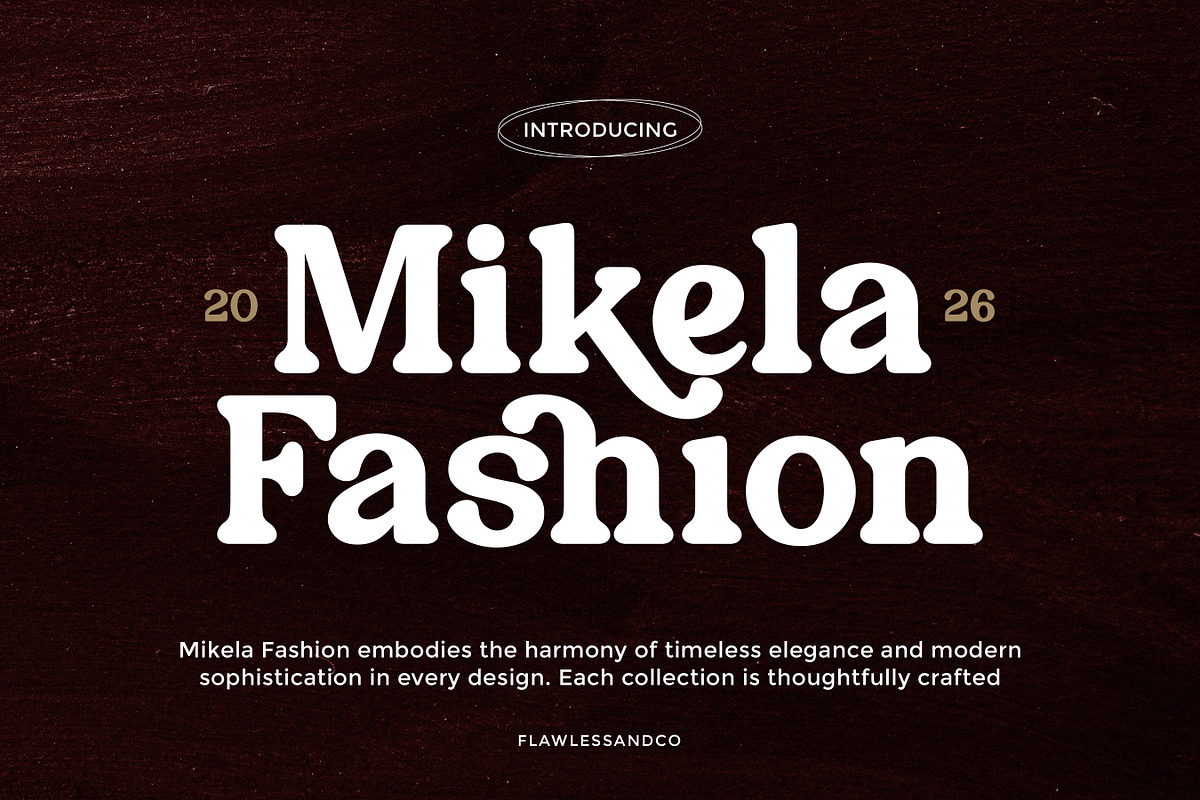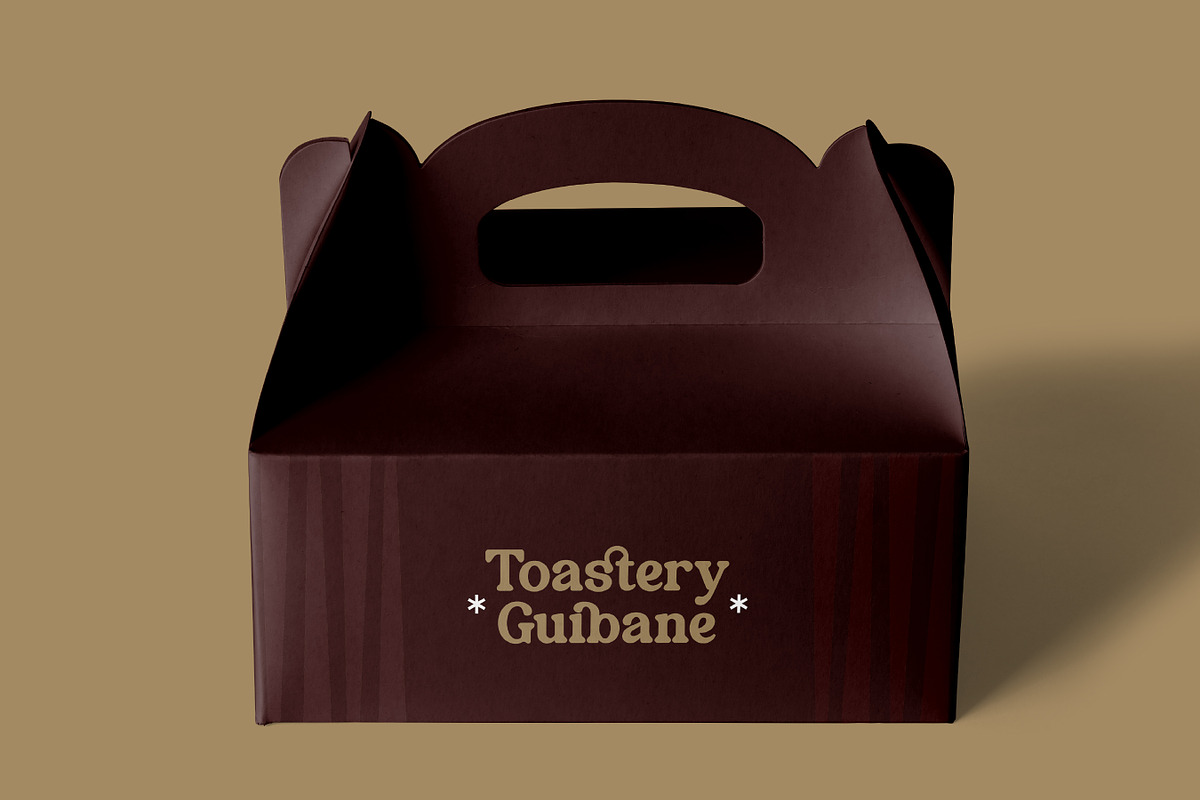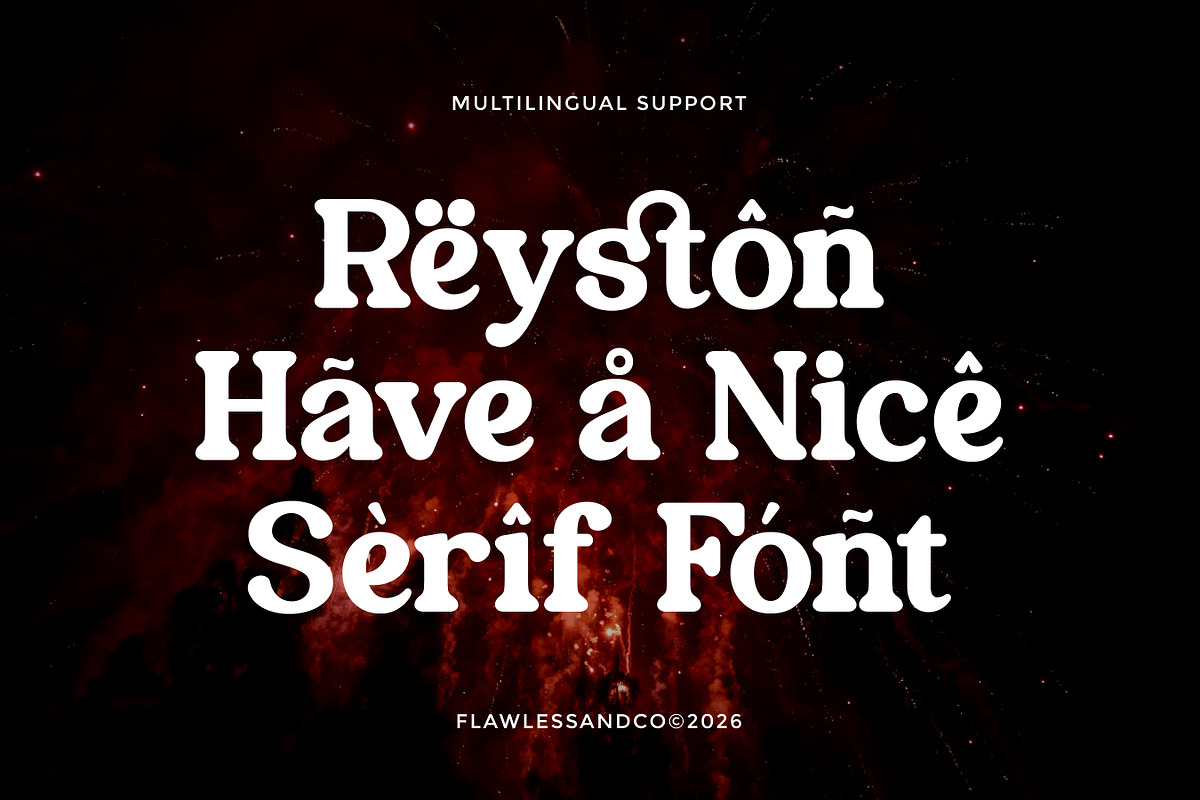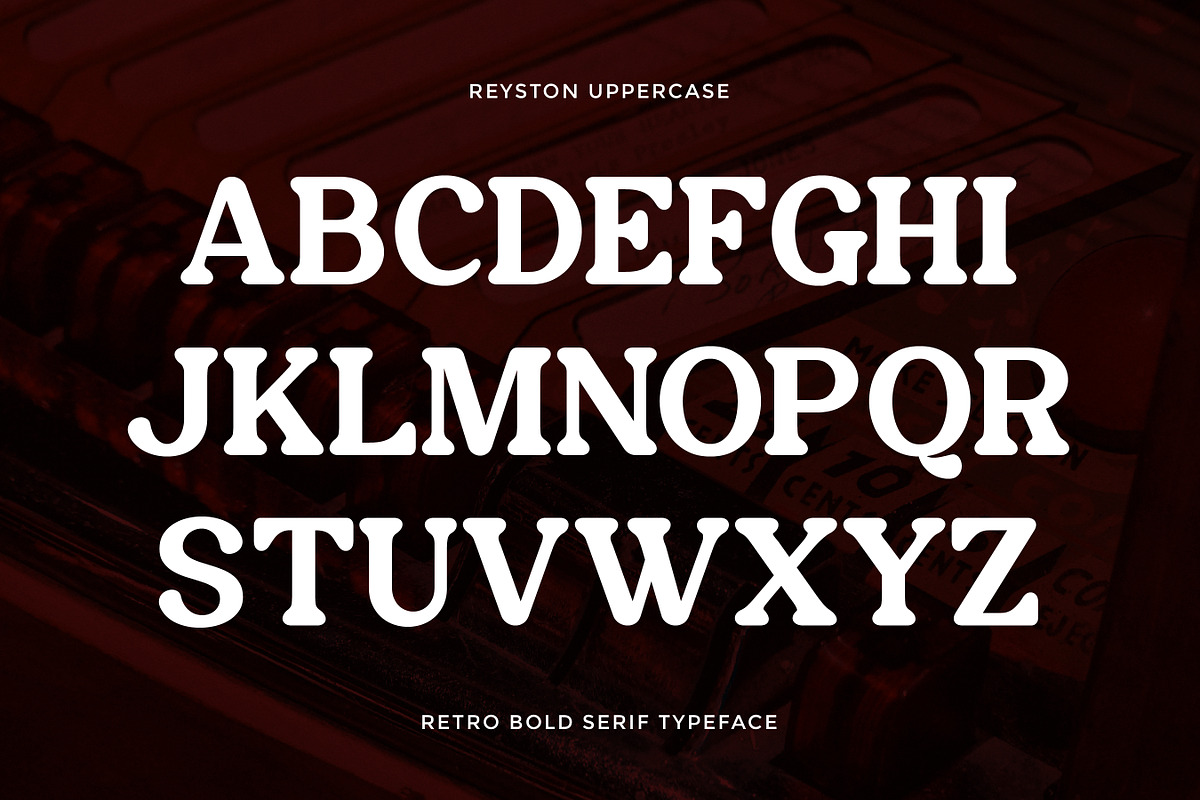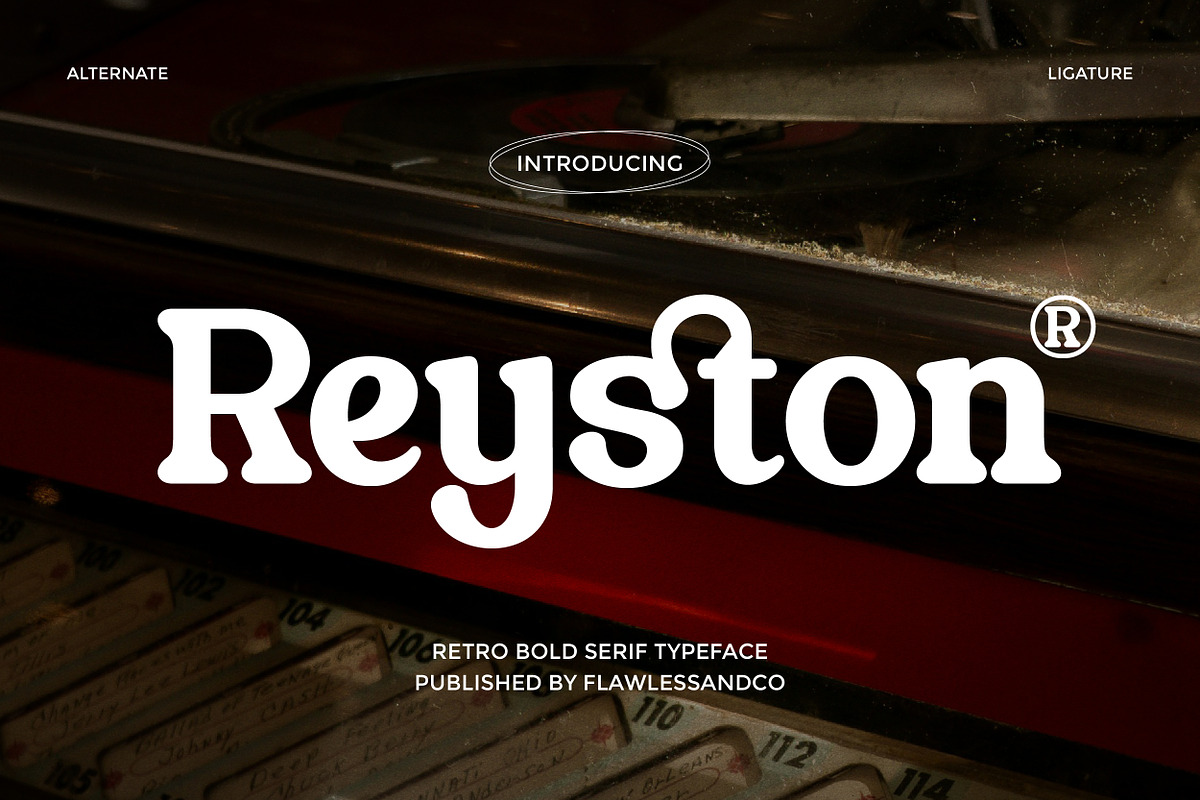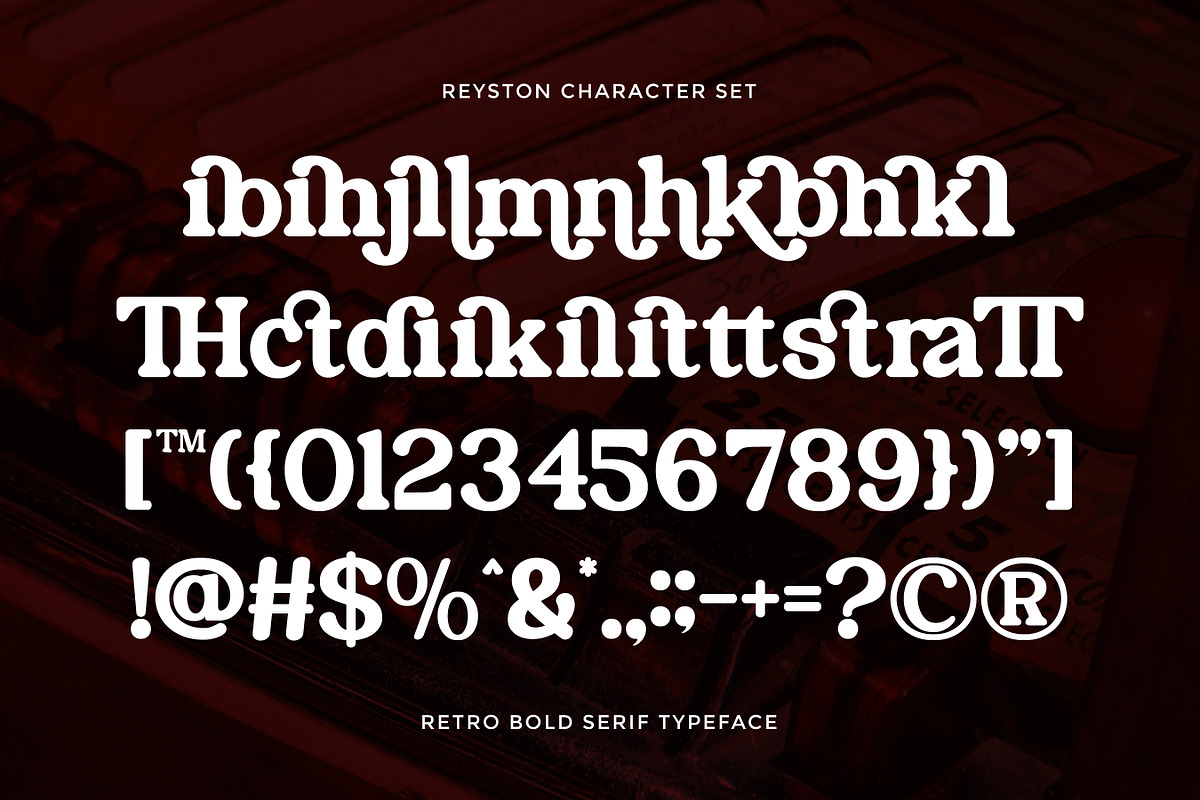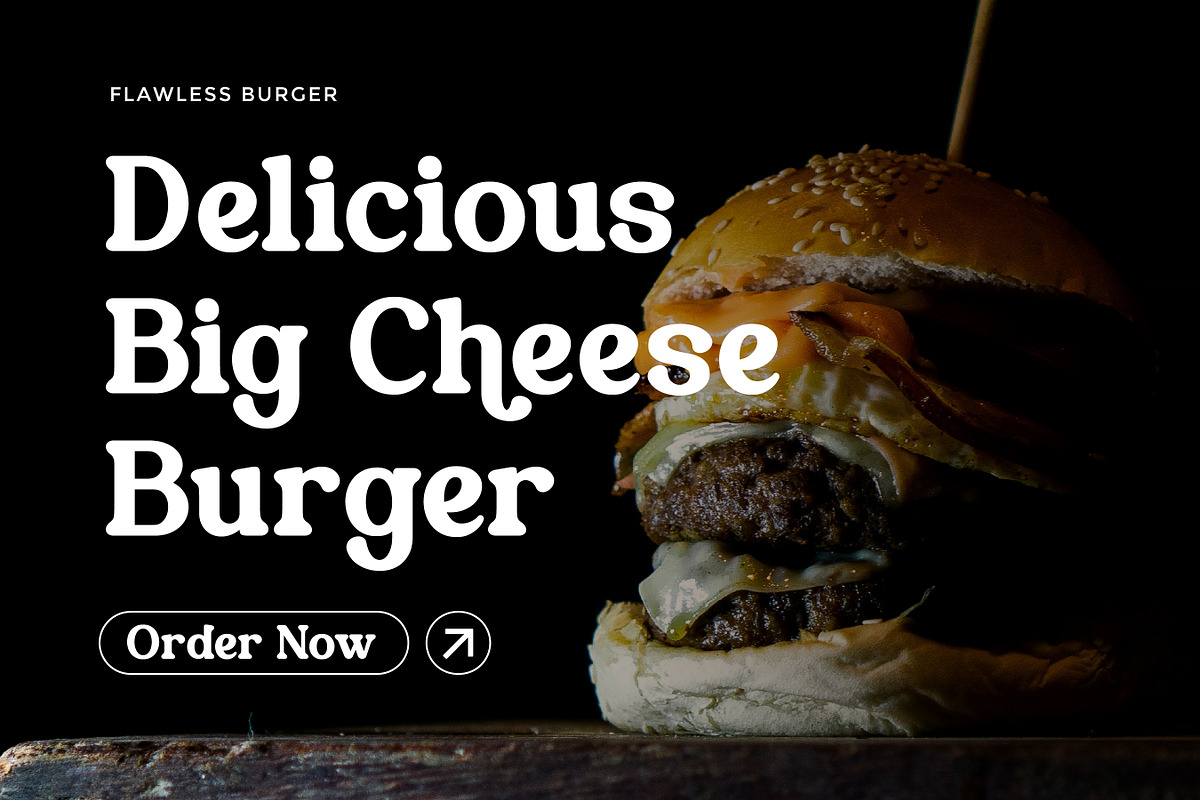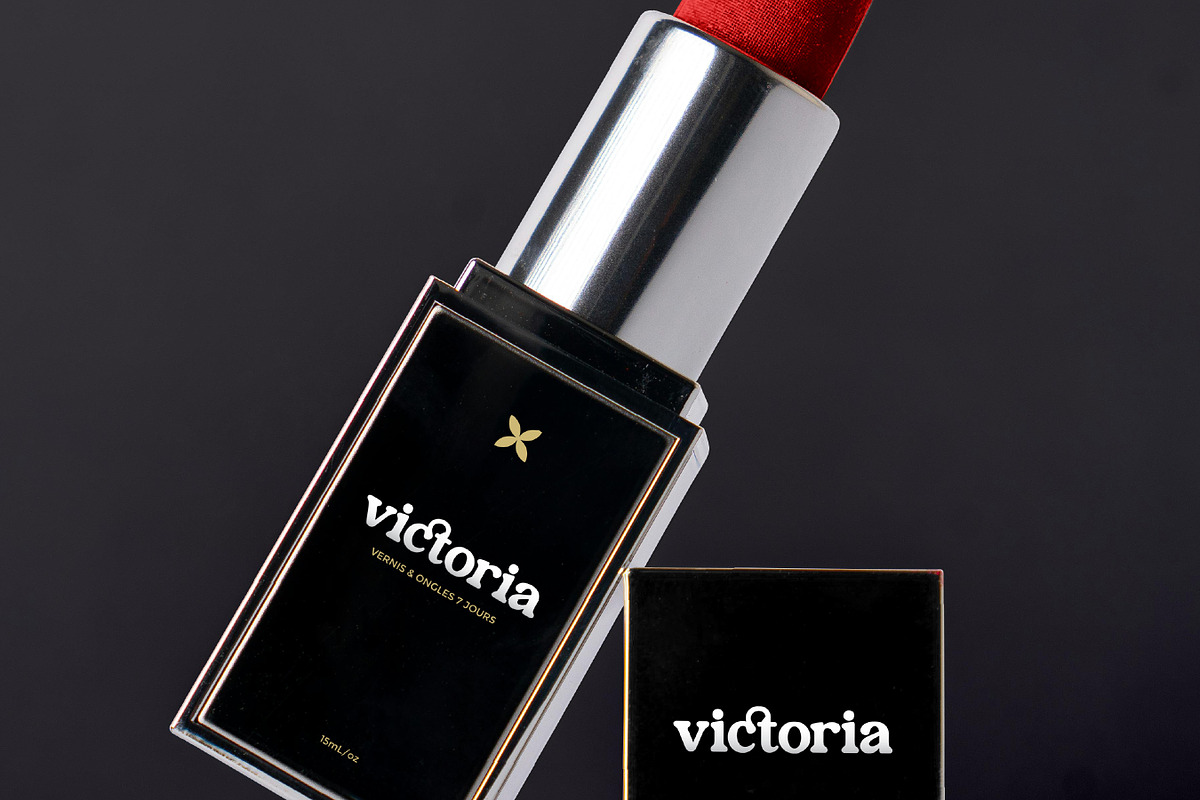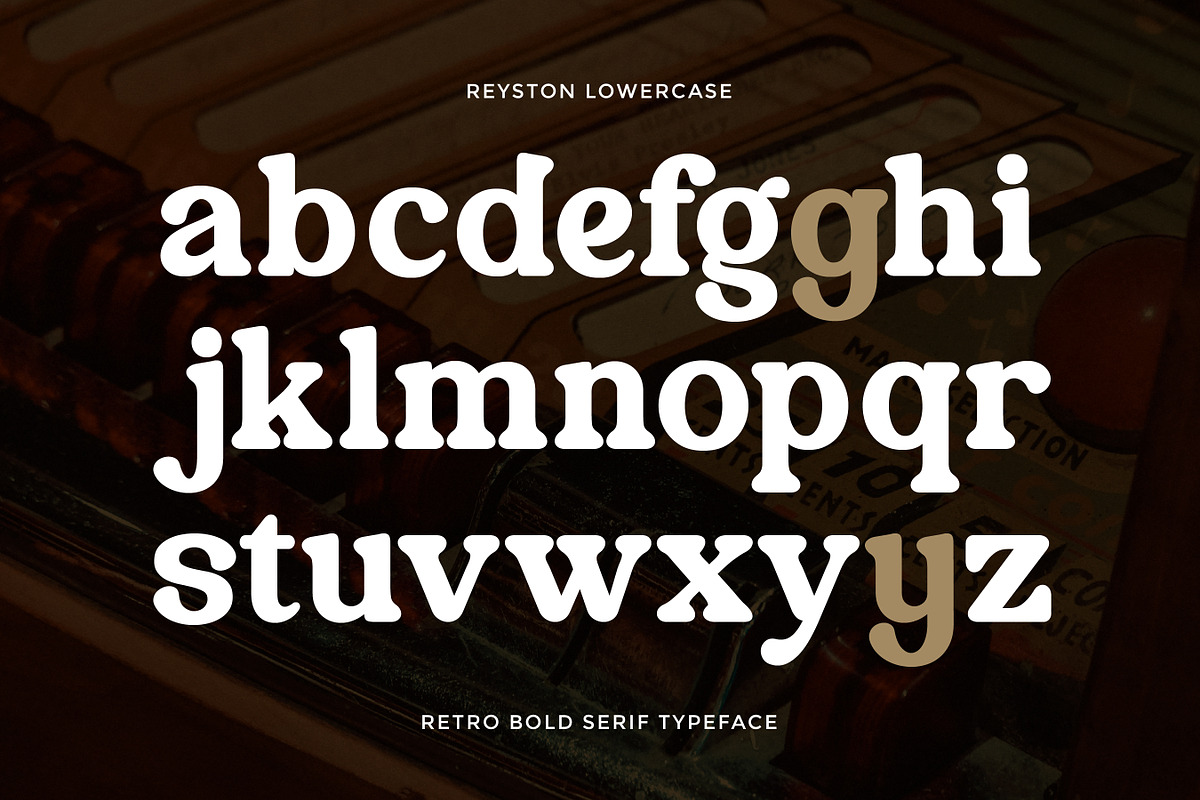
Reyston - Bold Retro Serif Font
Reyston – Retro Bold Serif Font
Reyston is a retro bold serif font designed to capture the timeless charm of vintage typography with a bold and confident presence. Featuring strong serif shapes, bold strokes, and stylish curves, Reyston brings a nostalgic yet refined look that stands out beautifully in modern design projects. This font combines retro character with elegant visual balance, making it perfect for designers who want to create designs that feel both classic and sophisticated. Its bold structure ensures excellent visibility, making it ideal for impactful headlines and distinctive branding.
Who Should Use Reyston?
Reyston is perfect for designers, creatives, and brands looking for a bold retro serif font that delivers strong visual character with a touch of elegance.
Suitable For:
- Retro and vintage branding
- Logo and brand identity design
- Posters and promotional graphics
- Editorial headlines and magazine layouts
- Social media graphics
- Vintage-themed merchandise
- Creative display typography